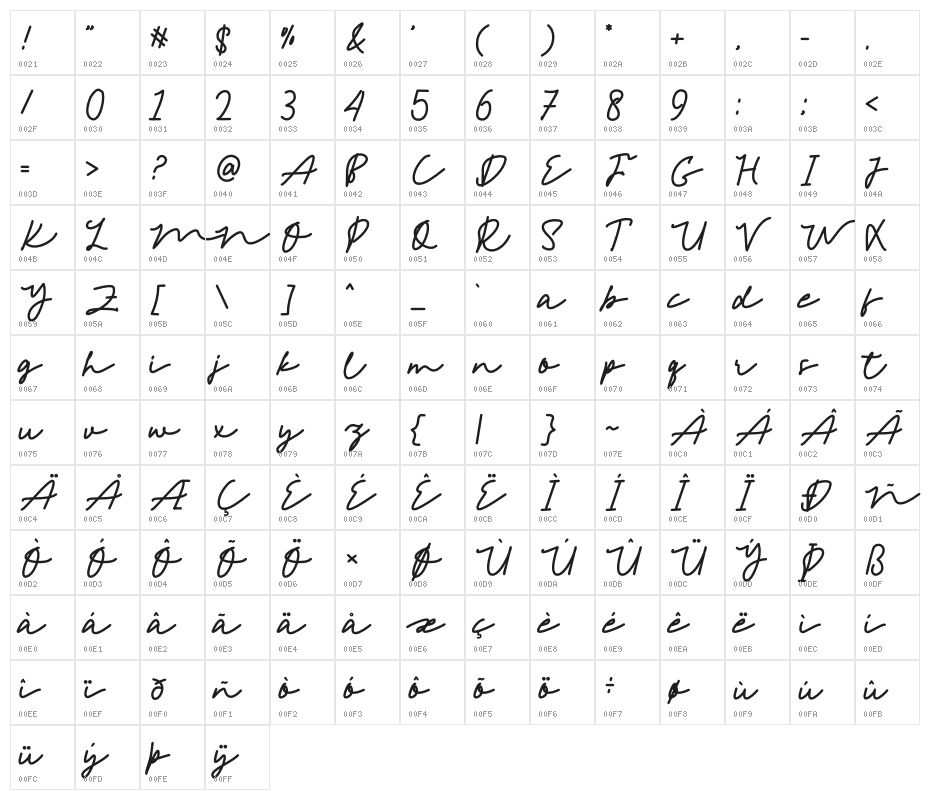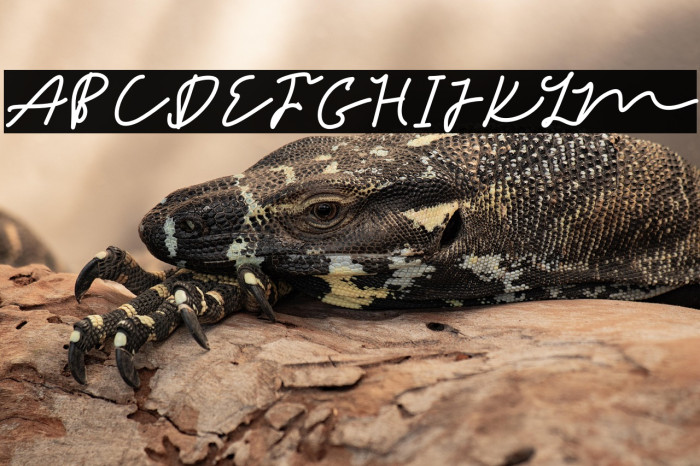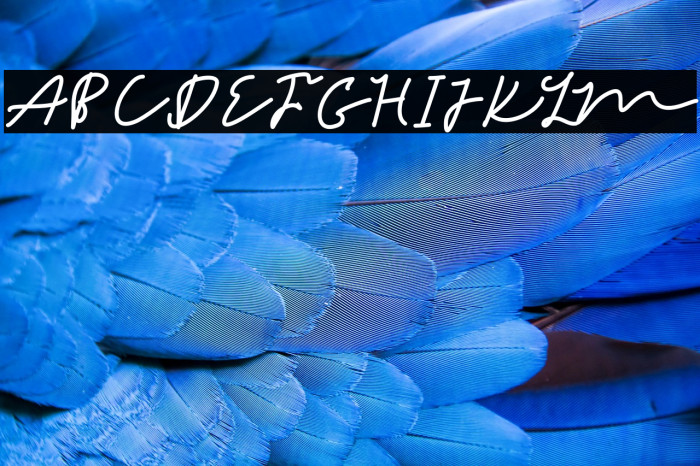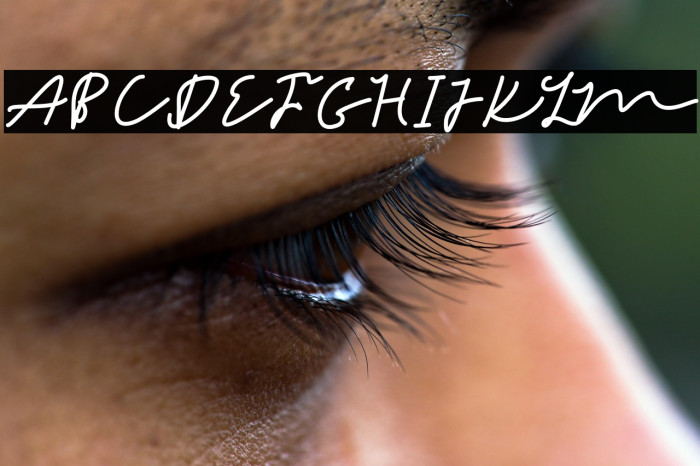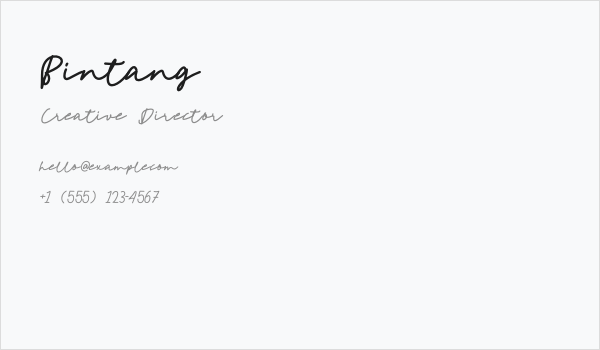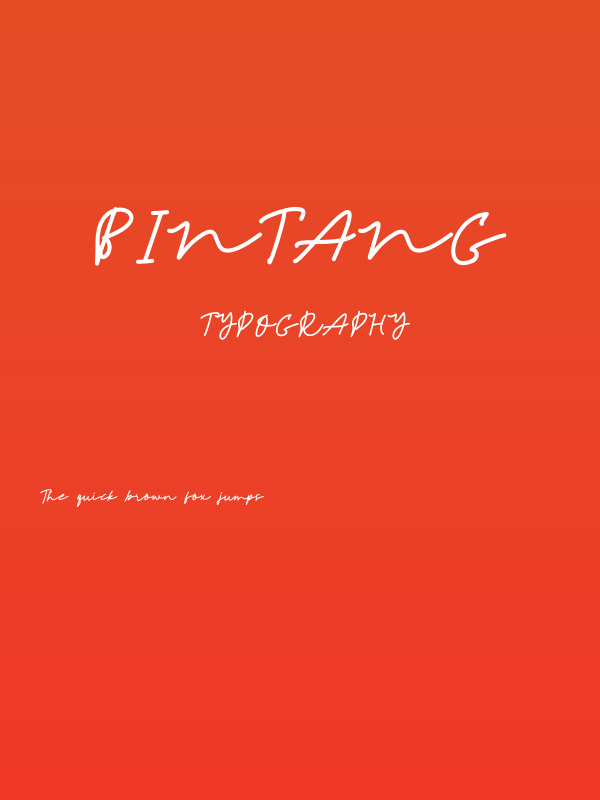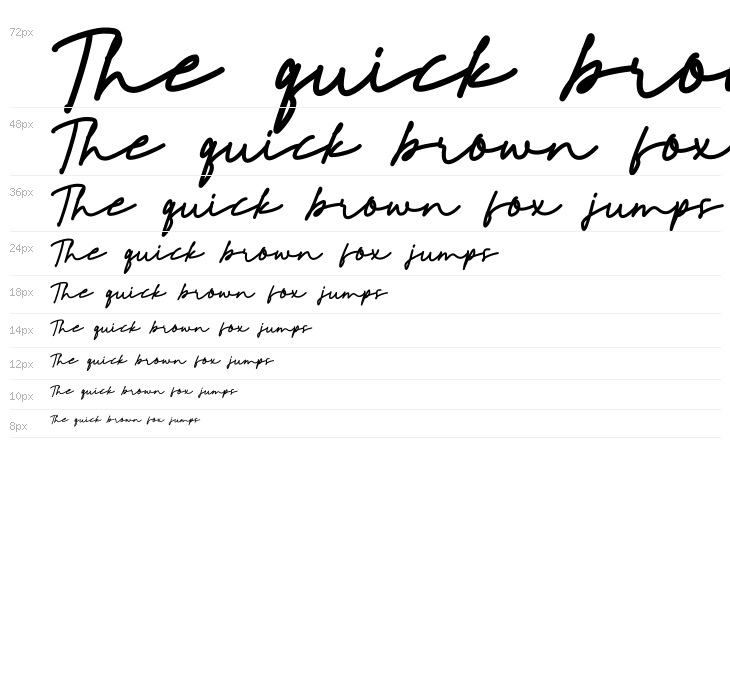
Bintang Font
Bintang Description
This font features a flowing, cursive style that mimics natural handwriting, giving it a personal and informal feel. The uppercase letters are elegantly connected, while the lowercase letters maintain a consistent slant and fluidity. The numbers are clear and slightly rounded, complementing the overall script style. Special characters are integrated seamlessly, maintaining the handwritten aesthetic. The strokes are smooth and consistent, with a medium contrast that enhances readability without sacrificing the artistic flair.
Overall StyleHandwritten
Use CaseLogos, Invitations, Personal notes
Proposed ProjectsIdeal for wedding invitations, personal letters, branding projects, and any design requiring a personal touch.